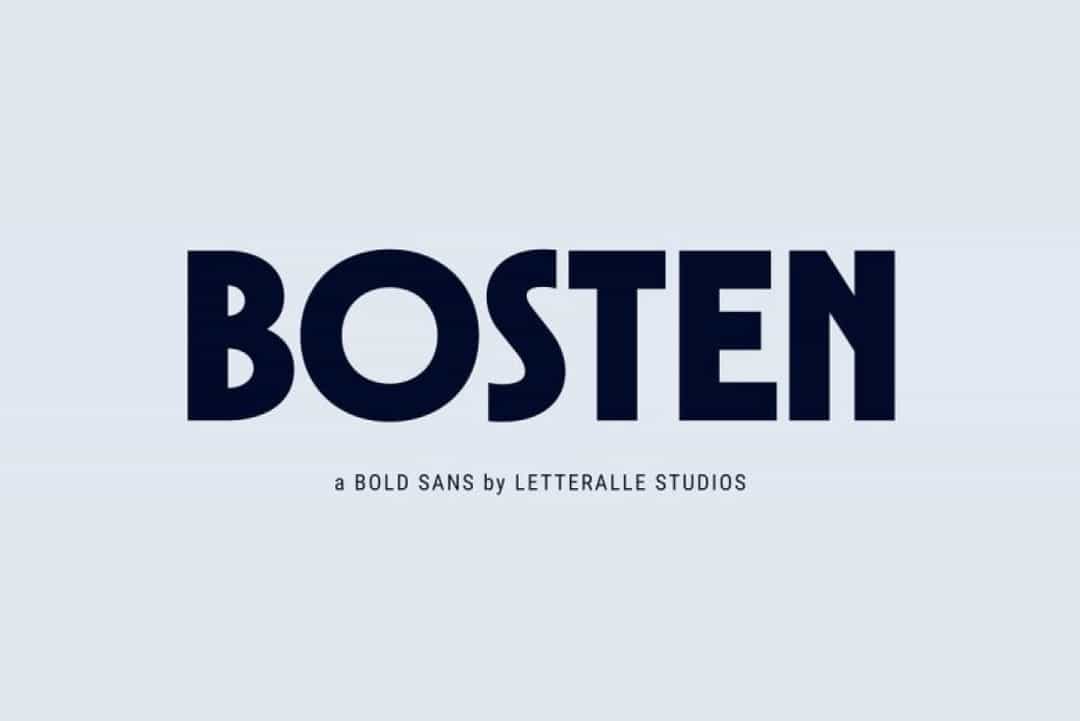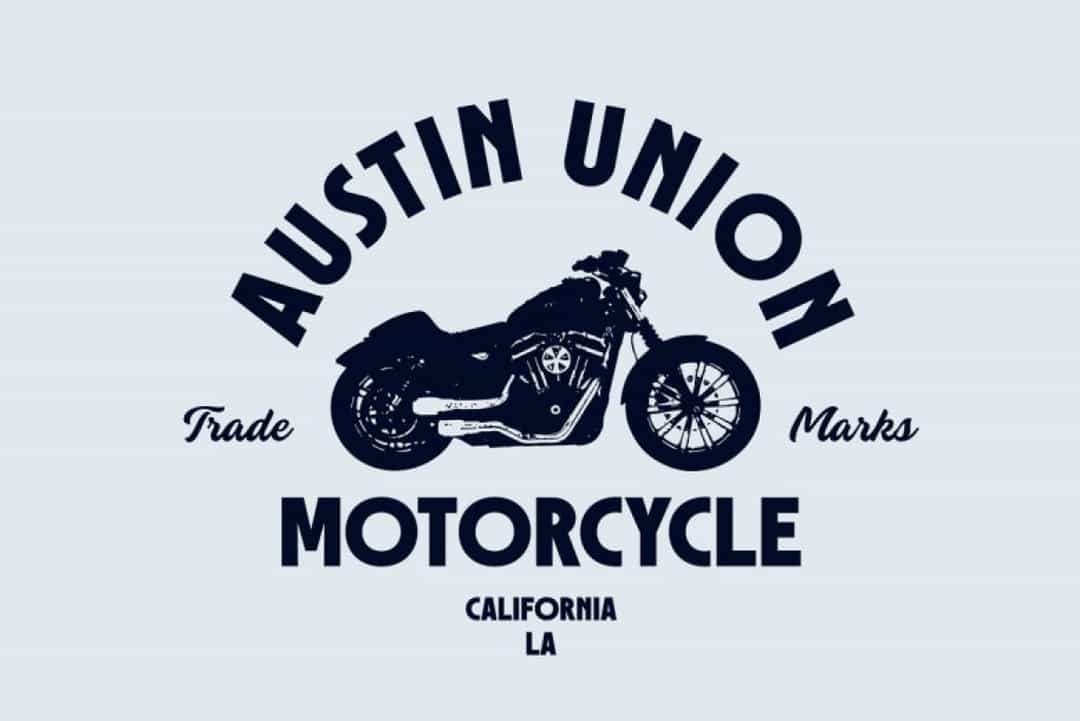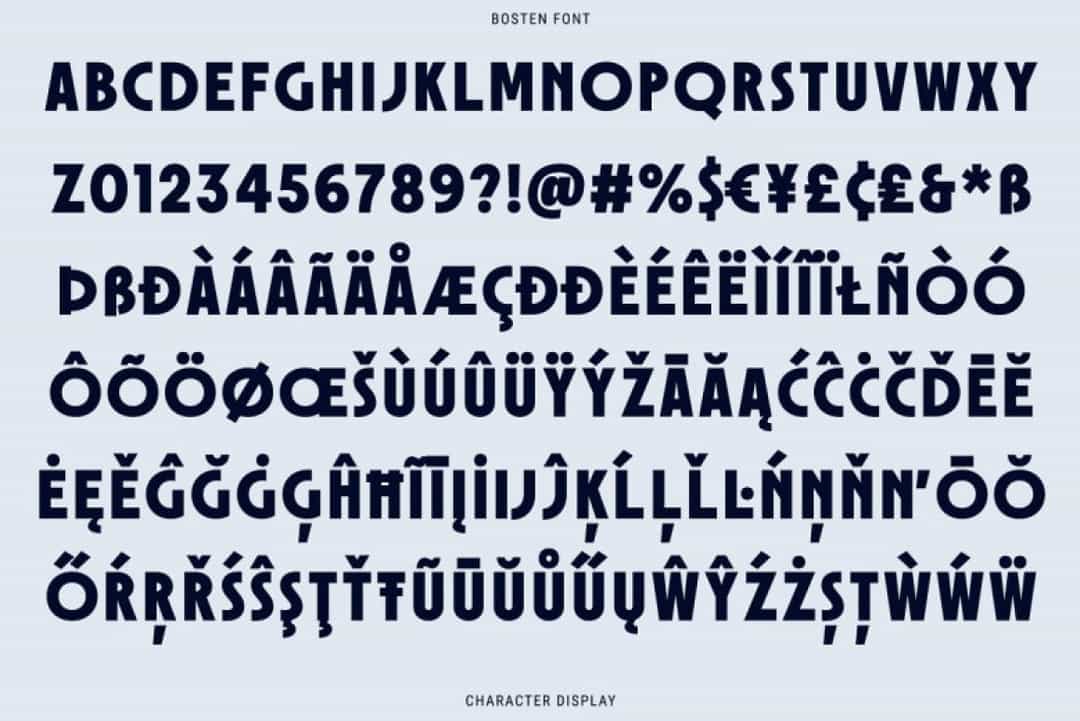
Bosten is designed to make an impactful statement no matter where it’s used, from headlines and brand messages, to headlines for websites and headlines on print media. Bosten’s sharp lines will surely grab everyone’s attention and leave an indelible mark behind! Carefully designed, this font not only looks stunning but is also easy to use – being compatible with most design programs and making it the ideal addition for any designer toolkit.